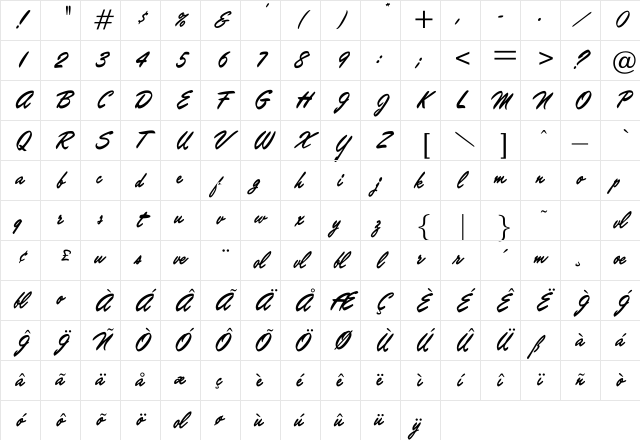
Kingman Regular
Complete Kingman Regular glyph index. Displaying only characters natively supported by Kingman Regular font.
Design Context for Kingman
Kingman is a composed and adaptable typeface that performs quietly and consistently across a wide range of design contexts.